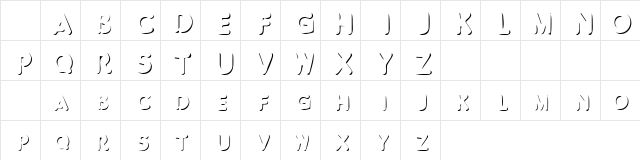
Shadow Land Normal
Design Context for Shadow Land Typeface
Shadow Land is built around its visual character rather than neutral utility — its distinctive forms are designed to make an impression at display sizes.
Font Pairing: Pair with a clean neutral sans-serif for body copy to let Shadow Land's character lead without overwhelming the composition.
Pro Tip: Use Shadow Land exclusively at display sizes — it was designed to be seen, not read at length. Let a neutral companion handle body copy.